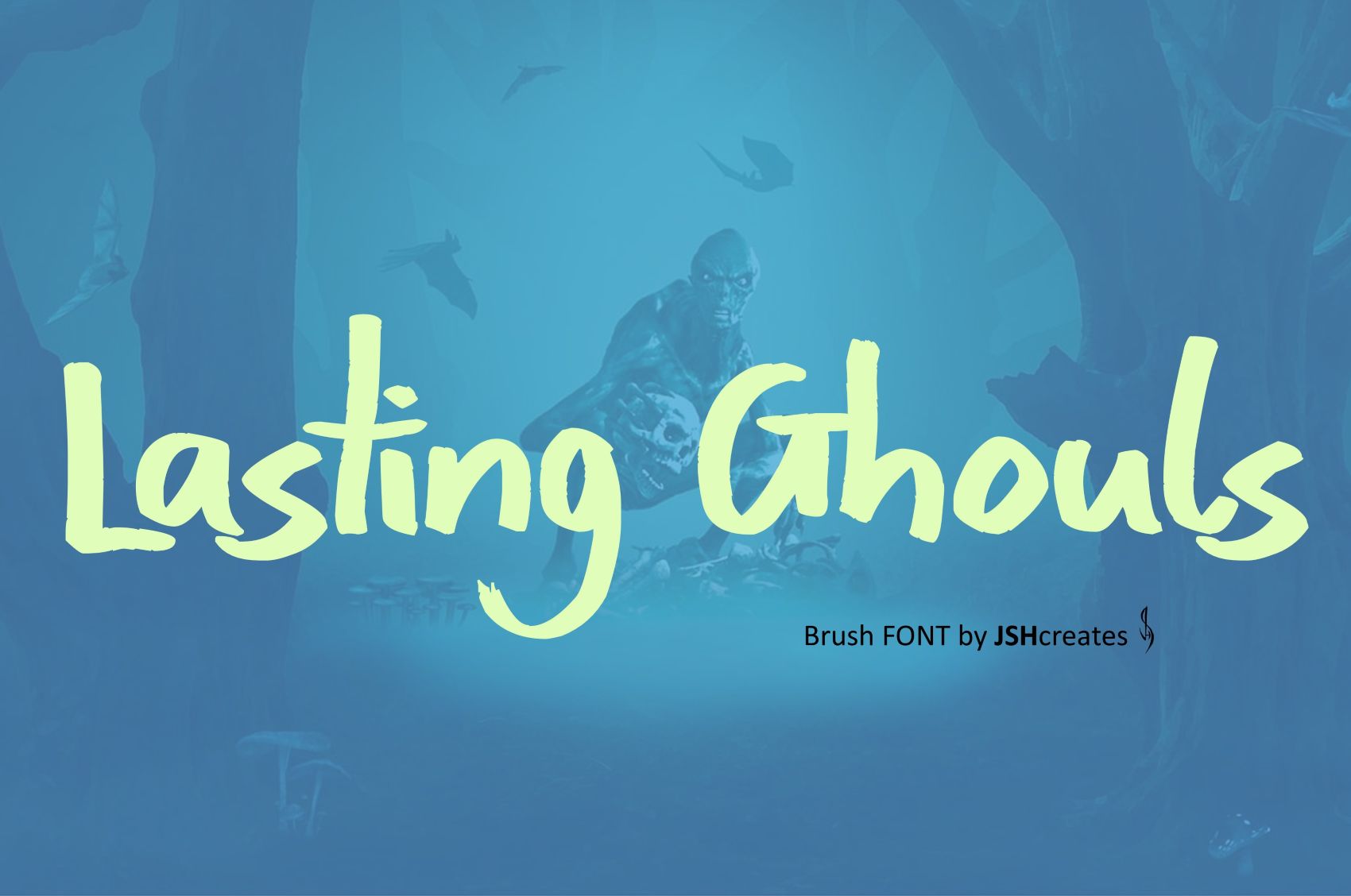
Lasting Ghouls Font
Hand lettered brush font. “Lasting Ghouls”. Perfect for advertising and display purposes, including banners, book covers, shirts, posters, logos and much more!
Font includes all upper and lowercase letters, numbers, characters and punctuation.